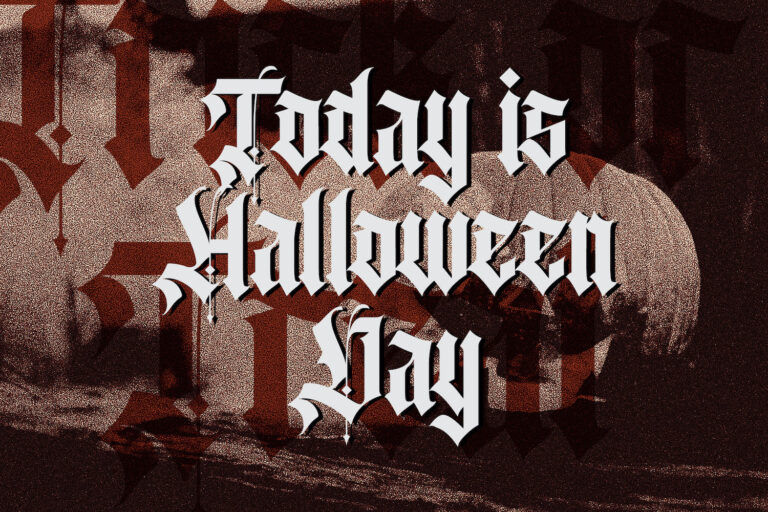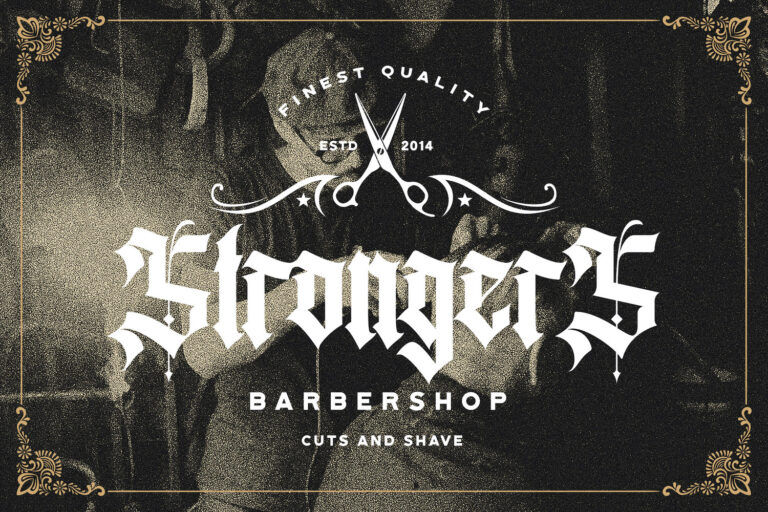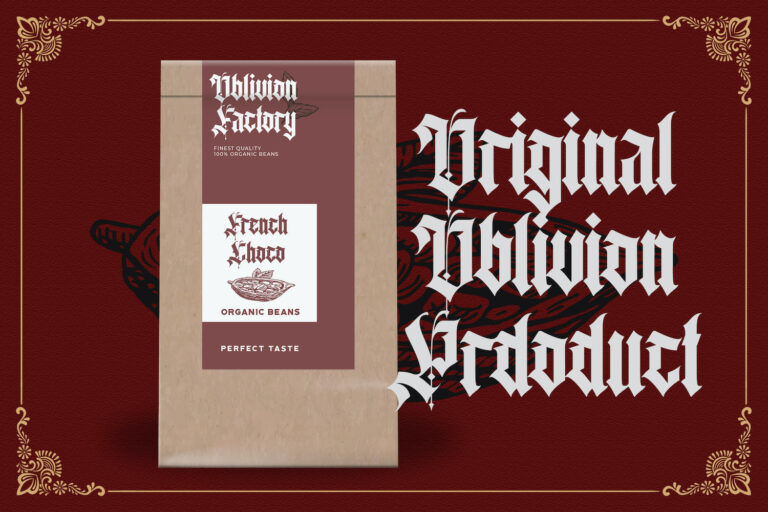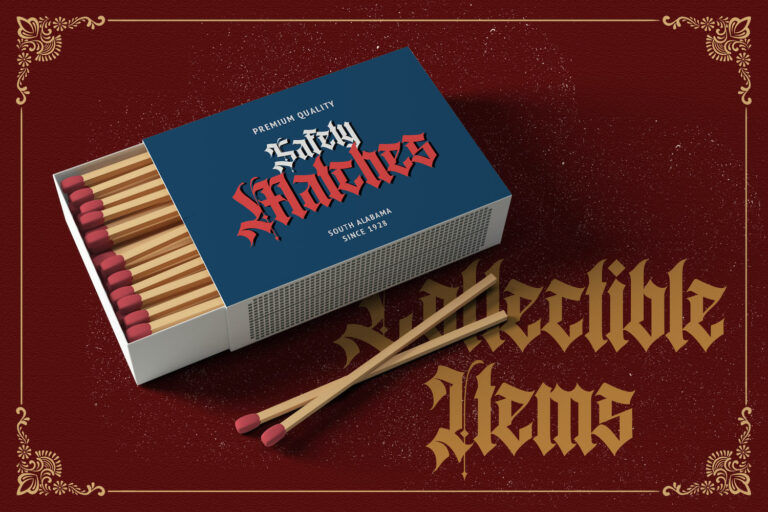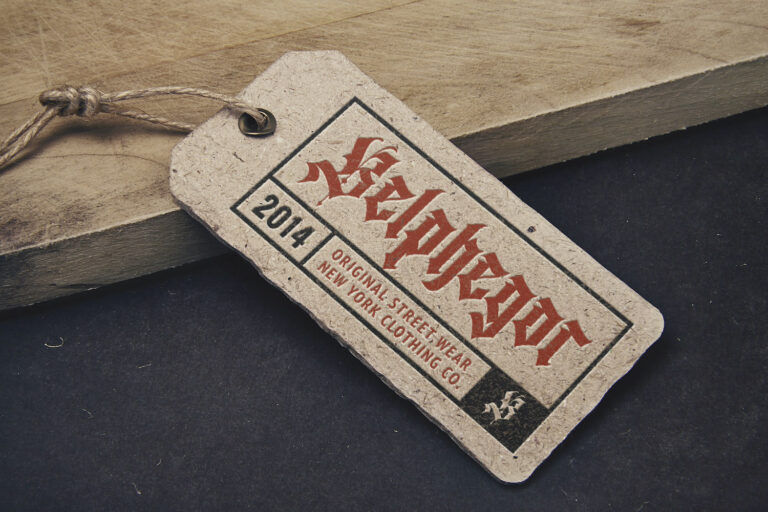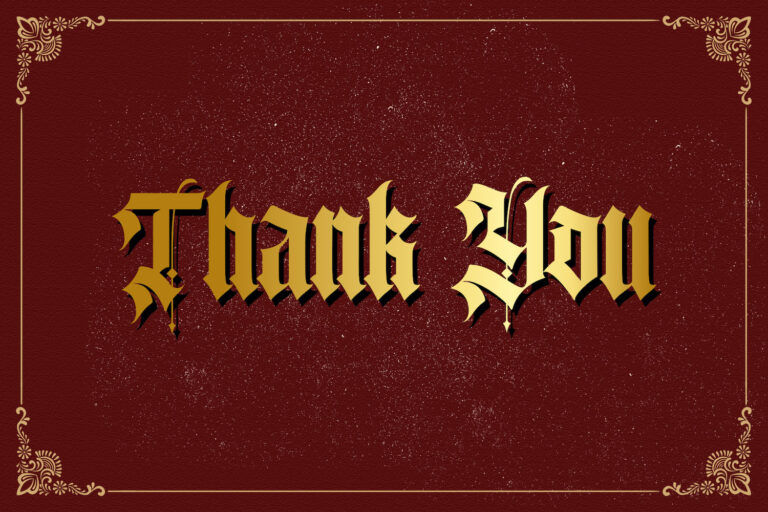
Agathiqy Blackletter Font is a decorative blackletter typeface with bold strokes, sharp angles, and compact spacing that gives every word a strong medieval look. The heavy verticals, diamond-shaped details, and dramatic curves keep Agathiqy Blackletter Font highly expressive, while the letterforms remain readable when used at display sizes. Alternates and ligatures add extra flair so you can build custom wordmarks that look tailored to your project.
Agathiqy Blackletter Font works well for vintage logos, tattoo or barbershop branding, gothic posters, music or merch designs, liquor and craft beer labels, and headline typography on flyers or packaging. The full uppercase and lowercase set, numerals, punctuation, and multilingual support make Agathiqy Blackletter Font a practical choice whenever you need a strong, historic-inspired display face that still feels controlled and professional.